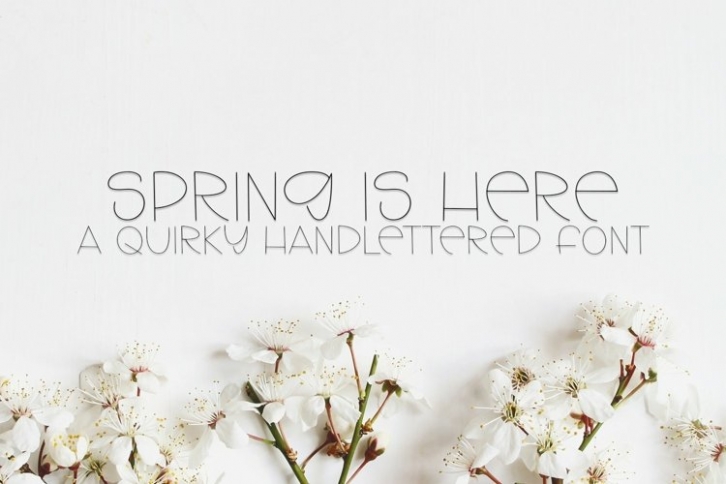
Web Spring Is Here is a gorgeous font that was realeased on April 29, 2021. The font can be used in many style contexts and design environments. Perfect for invitations, magazines, websites, logos, and more! It was designed by plusstore and the file size is 11.6 MB. Thanks for checking out this font!